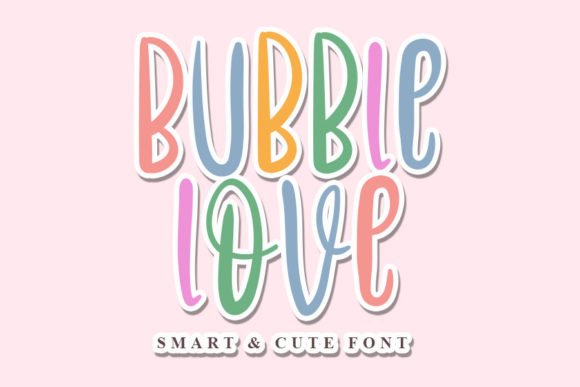
Bursting with Personality: The Bubble Love Font
Have you ever been brainstorming a design project and suddenly, a spark of inspiration hits you? The ideas start flowing, and you can’t wait to bring your vision to life. That’s exactly what happened when I first laid eyes on the Bubble Love Font. Its playful and friendly vibe instantly drew me in, and I knew I had to learn more.
Bubble Love Font is a charming display font designed to convey confidence and versatility. With its stylish alternates and ligatures, it’s the perfect companion for any project, from greeting cards to social media graphics. Whether you’re a seasoned designer or just starting out, the Bubble Love Font is a valuable addition to your toolkit. Its ease of use and versatility make it a must-have for anyone looking to add a touch of personality to their designs.
- Unique Characteristics: Hand-drawn design, bubbly and playful feel, suitable for children’s books, greeting cards, and other creative projects
Bubble Love Font Review
Overall, I think the Bubble Love Font has some charming qualities that make it stand out, ✨ but it’s not without its limitations. Here’s my honest take on this quirky font.
- ✨ Whimsical and playful feel that’s perfect for children’s books, party invitations, or social media graphics.
- ✨ Unique and distinctive letterforms that add a touch of personality to any design.
- ✨ Works well in large sizes, making it great for headings and titles.
- ⚠️ Limited legibility at smaller font sizes, making it challenging to read in body text.
- ⚠️ Not suitable for formal or professional designs, as its playful nature may come across as immature.
- ⚠️ Some letterforms may require additional design tweaks to ensure proper spacing and alignment.
Overall, the Bubble Love Font is a fun and creative addition to any designer’s toolkit. While it may have some limitations, its unique personality and versatility make it a great choice for the right projects. Just be sure to use it wisely and pair it with complementary fonts to achieve the best results.
For best results, use the Bubble Love Font in conjunction with bright and pastel colors to create a playful and whimsical atmosphere. You can also experiment with different font sizes and styles to create visual hierarchy and emphasis.
The Bubble Love Font is ideal for creating eye-catching titles, headings, and quotes for social media graphics, blog posts, and marketing materials. It’s also perfect for designing children’s party invitations, birthday cards, and other fun and playful projects.